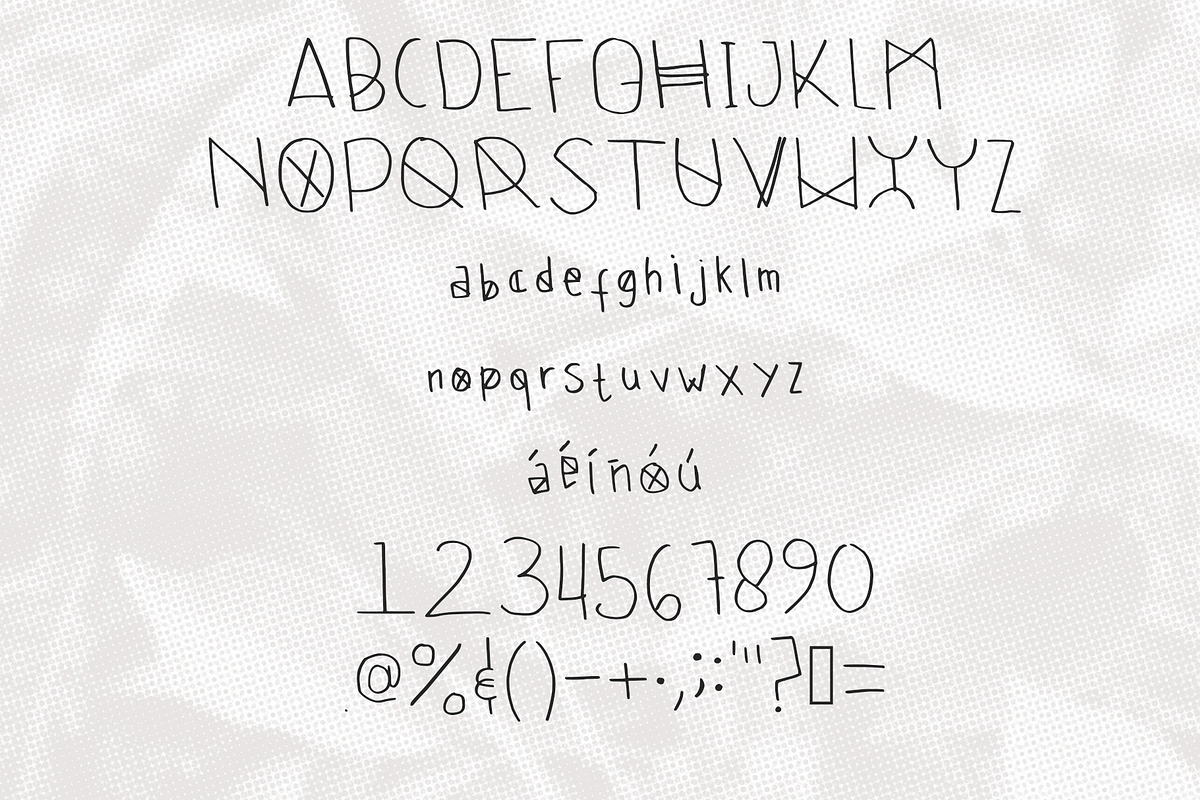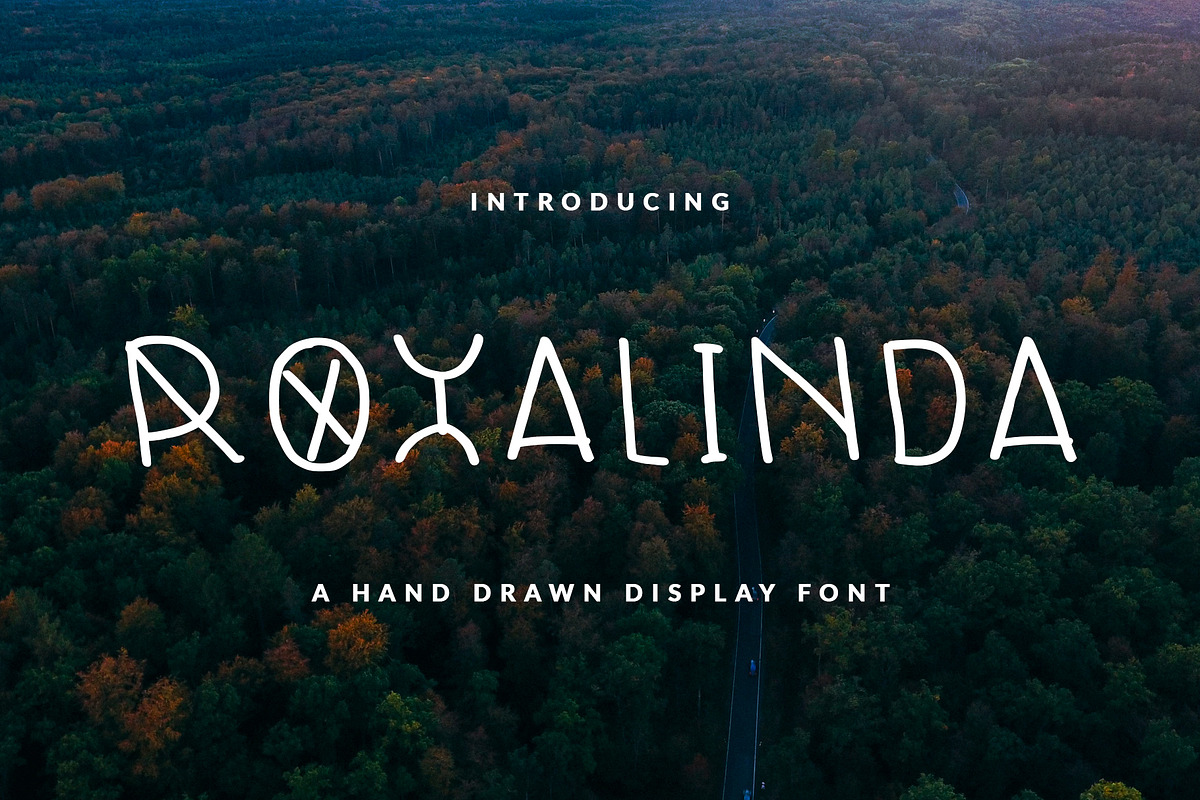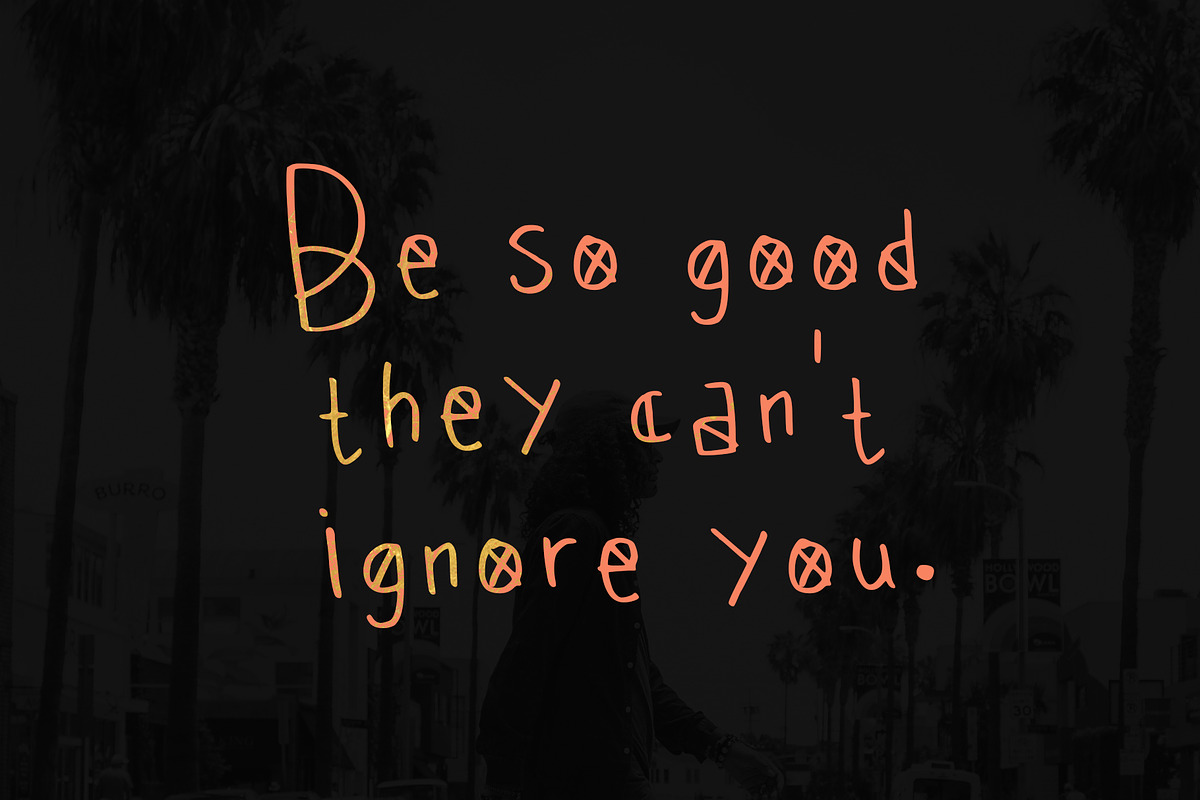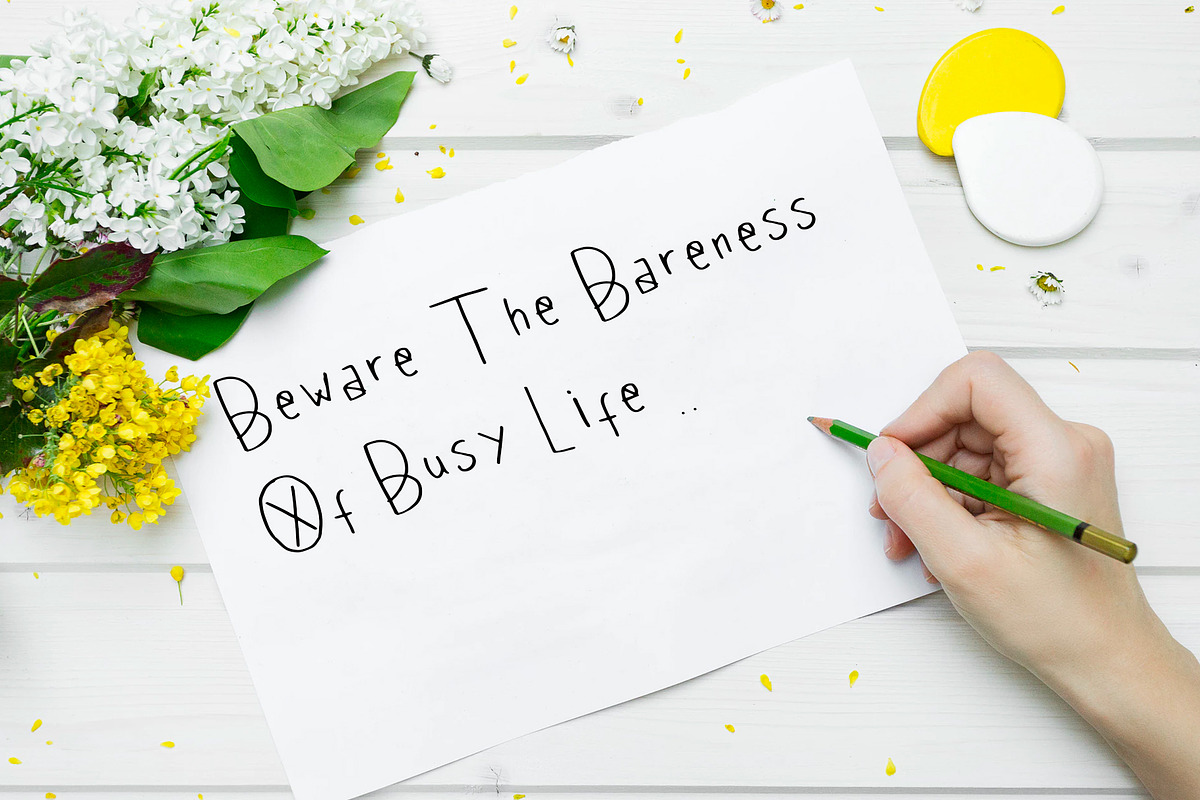
ROXALINDA FONT DISPLAY
Sans serif hand-drawn display font called ROXALINDA was designed for modern, classic, feminine, unique and other style also fit for Header website, general use for header text, kids stories, books, poems and other long text
ROXALINDA FONT DISPLAY by NadaNora fits naturally into Branding, posters, packaging, typography.